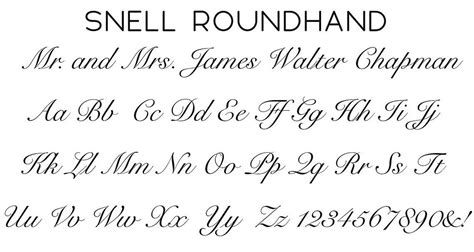
Snell Roundhand Font
Web in 1966 matthew carter translated snell’s script for photocomposition, later adding two more weights. The snell roundhand font family is a one the best handwritten script font. Complete family of 3 fonts: Download snell roundhand regular for free. Web snell roundhand is a free typeface that is allowed to use in any of the personal projects but for a commercial project, you will require permission. Snell roundhand font family was designed by matthew carter and published by linotype. Web snell roundhand font family free download. View sample text, character map, user. 1 style uncategorized 684 downloads. Web individual styles from $29.99.